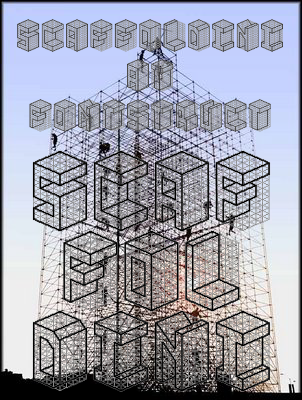
• i started this one a long time ago - the original starter file is dated 9/15/2009. this began as a result of trying to create a different isometric font. after building the framework or scaffolding, i did a few 'A' glyphs, but couldn't go any further. initially, i used square bricks to create the lines, but changed to circle bricks to get a smoother look, although it still looks kind of rough and well...like a cinder block :) it wasn't nearly as bad as i thought it would be to complete, but still challenging. no other versions yet, but maybe...
You should have been an architect :0)
Awesome! Almost one year to complete...just like a real building! I would have made it 5x5x10 so the 'I','T' and 'Y' suit better...but its your font and its amazing just the way it is now.
I love the grid behing, very good concept.
Just awesome. I'm so glad you left the framework in the negative space, it looks like each letter is stuffed in a cage!
@ wurfle - you made me reconsider the name, since part of my original inspiration was this pic of construction scaffolding - which is very cagey. thanks.
to be honest, I almost did not browse others' creations because I had come to fontstruct with the sole intent of creating a font that looked like something done by a mono-spaced dot-matrix printer, but then I saw your font and knew that browsing is worth it... that it is available for free is fantastic; I will use it today.
This is preety awesome!.. wish lower case letters were complete.. I love it!
it looks so beast love it!